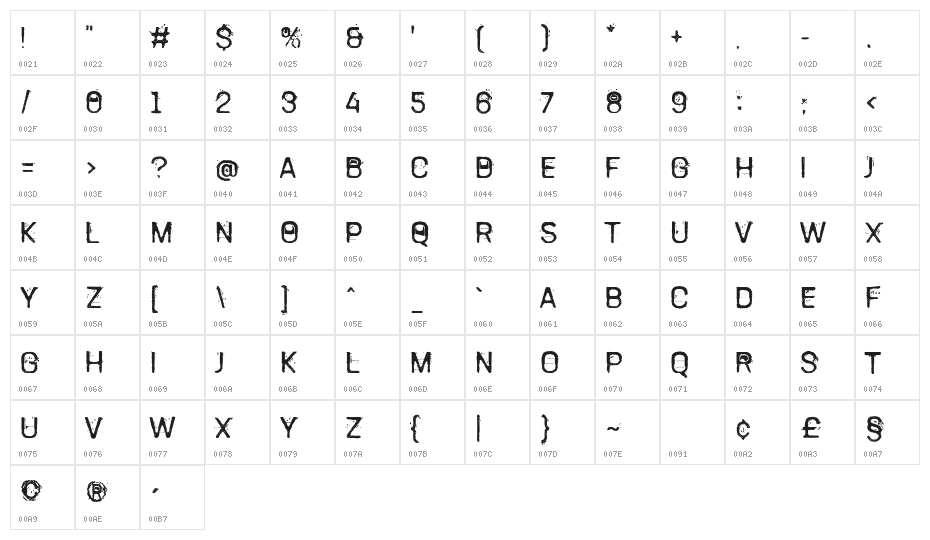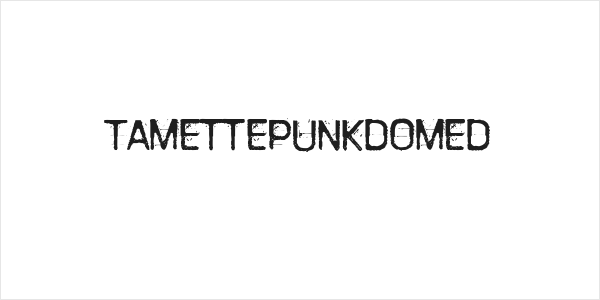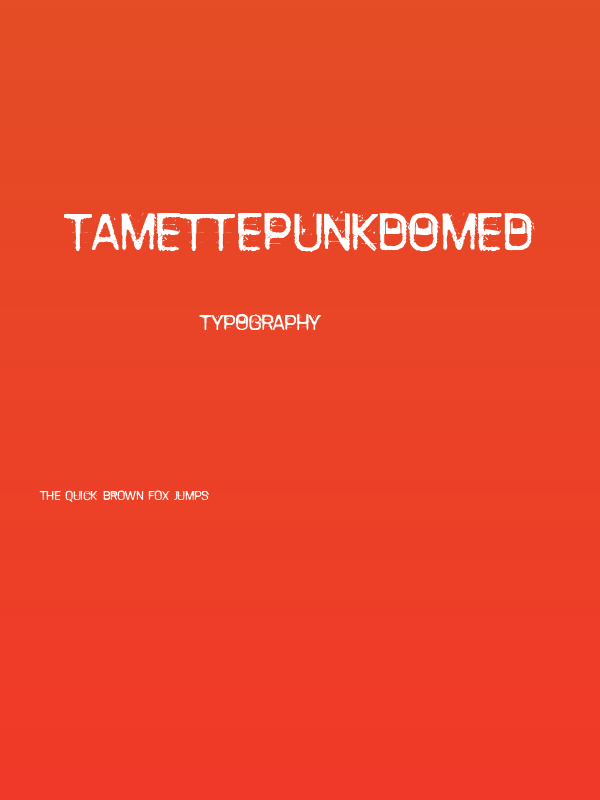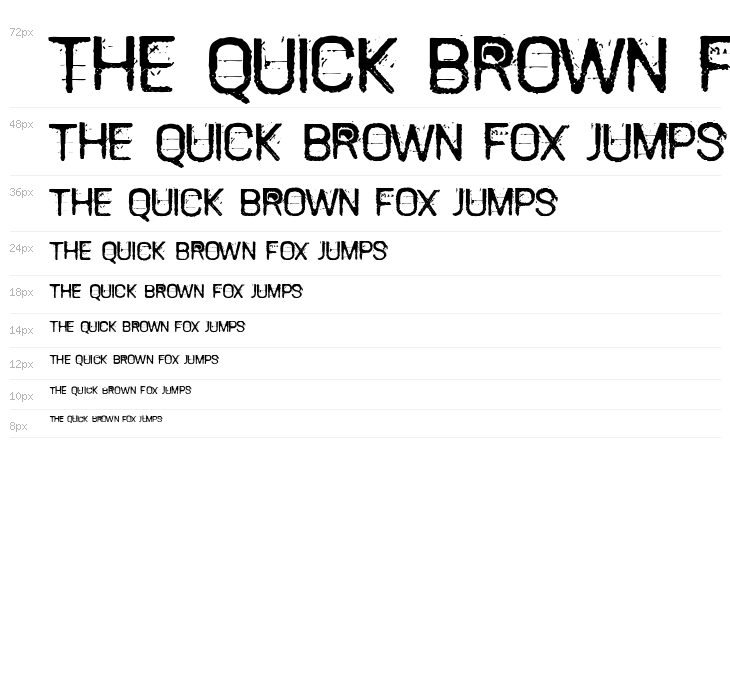
TamettePunkdomed Font
TamettePunkdomed Description
This font exhibits a distressed, grunge style with a bold and rugged appearance. The characters are designed with a rough texture, giving them a worn and edgy look. The uppercase and lowercase letters maintain a consistent style, with irregular edges and a slightly chaotic feel. Numbers and special characters follow the same aesthetic, enhancing the overall punk and rebellious vibe. The font's unique design makes it stand out, ideal for projects that require a bold statement.
| Overall Style | Grunge, Punk |
| Proposed Projects | Ideal for music album covers, posters, streetwear branding, and edgy graphic designs. |